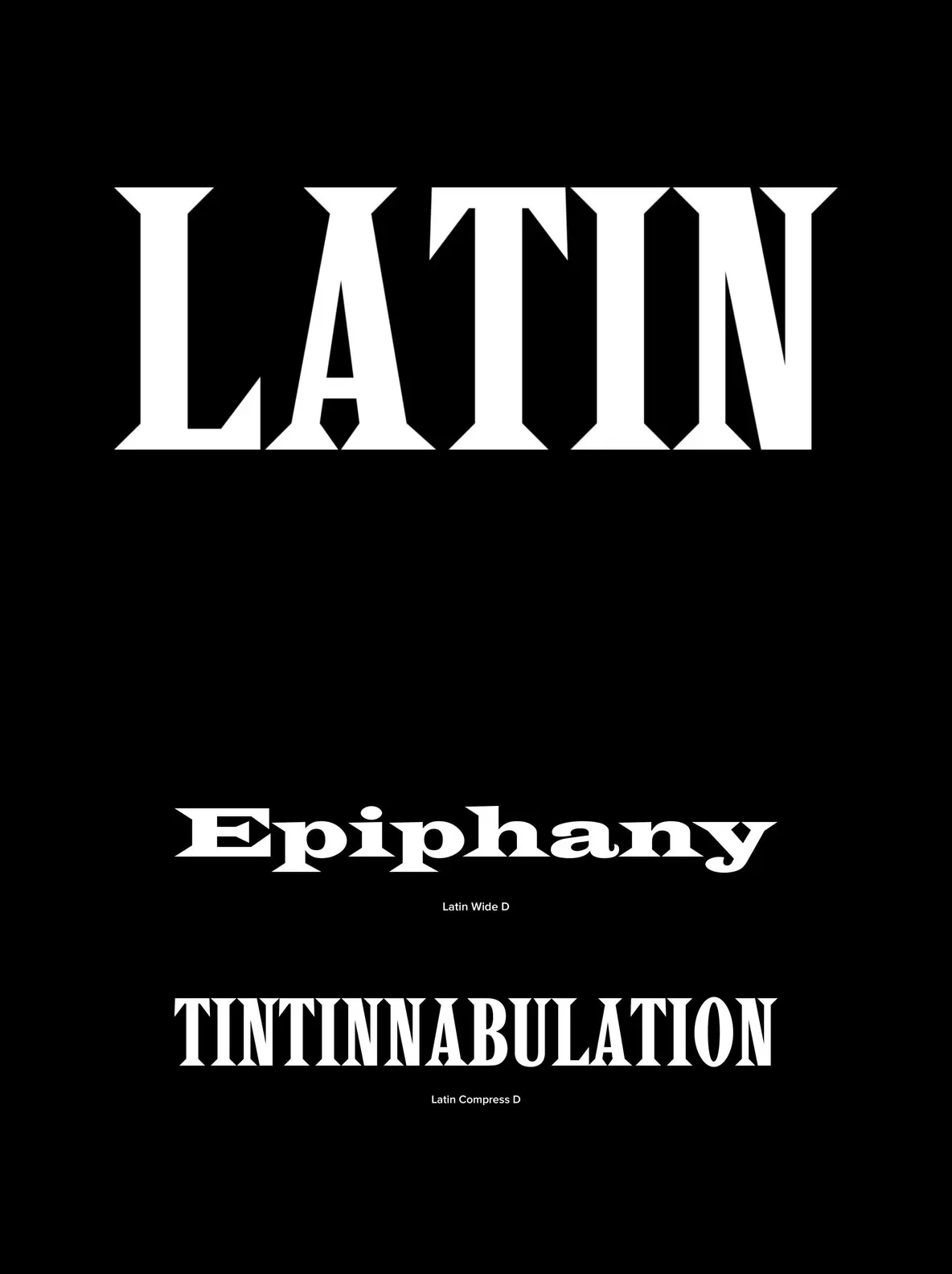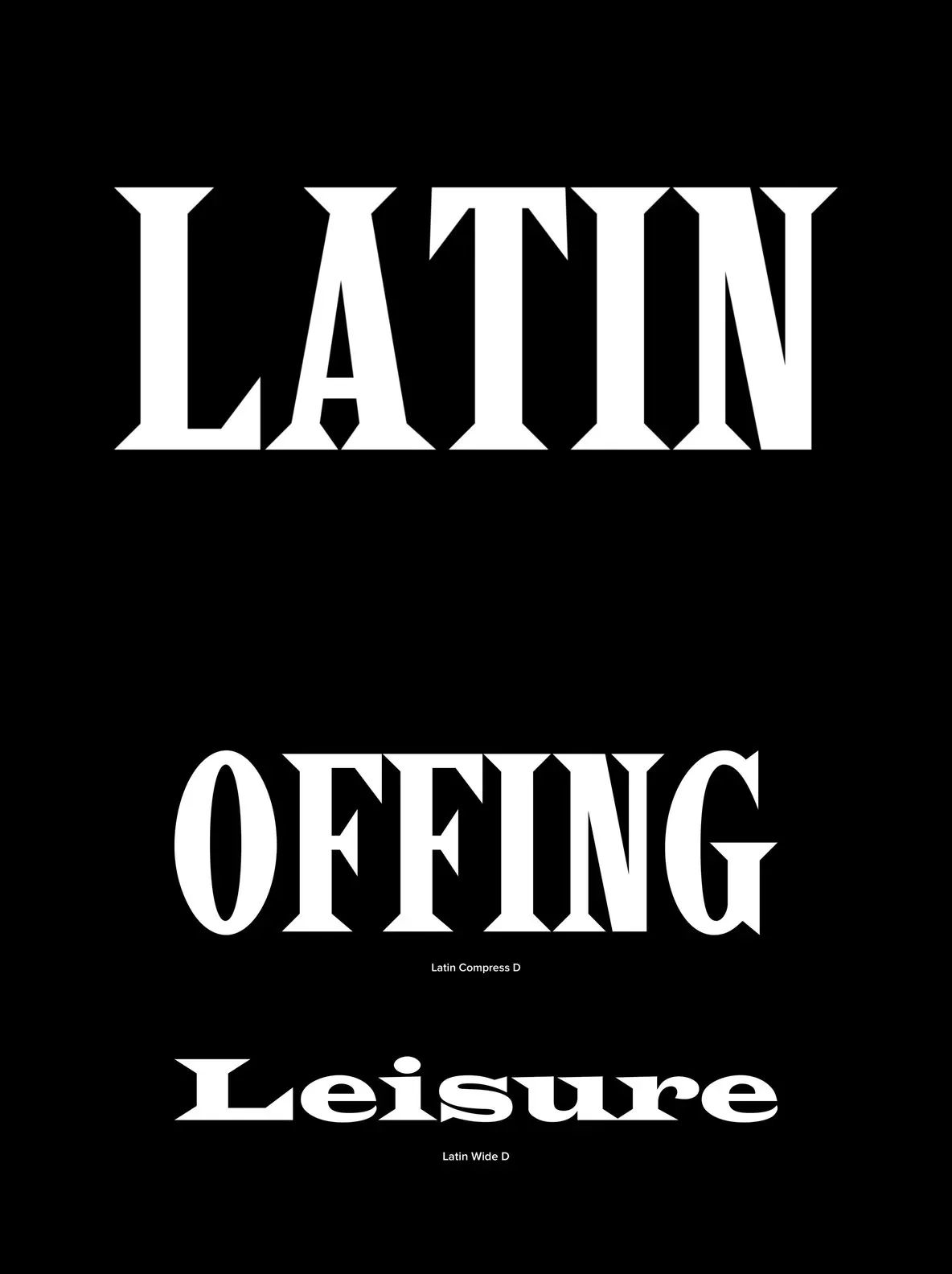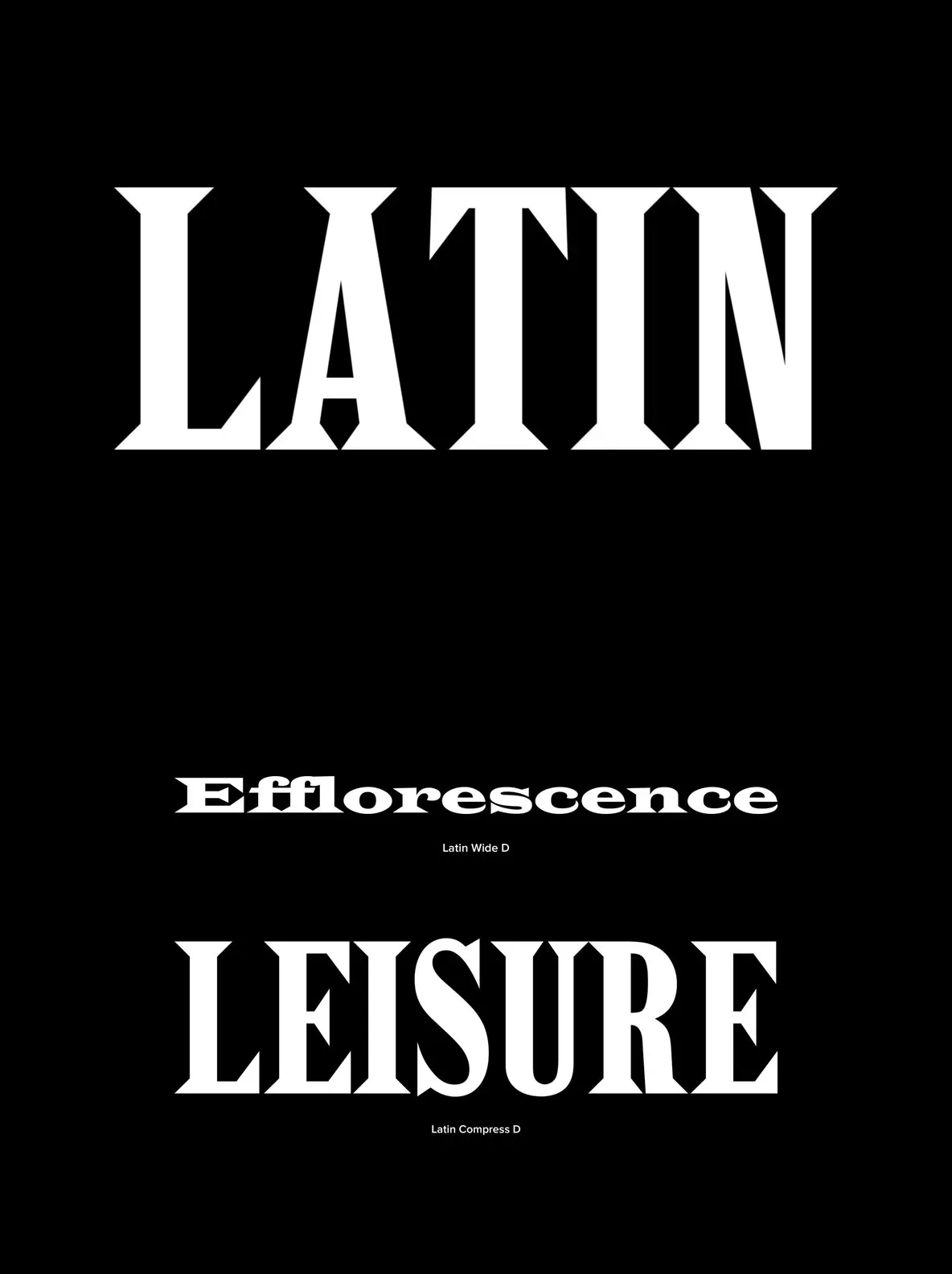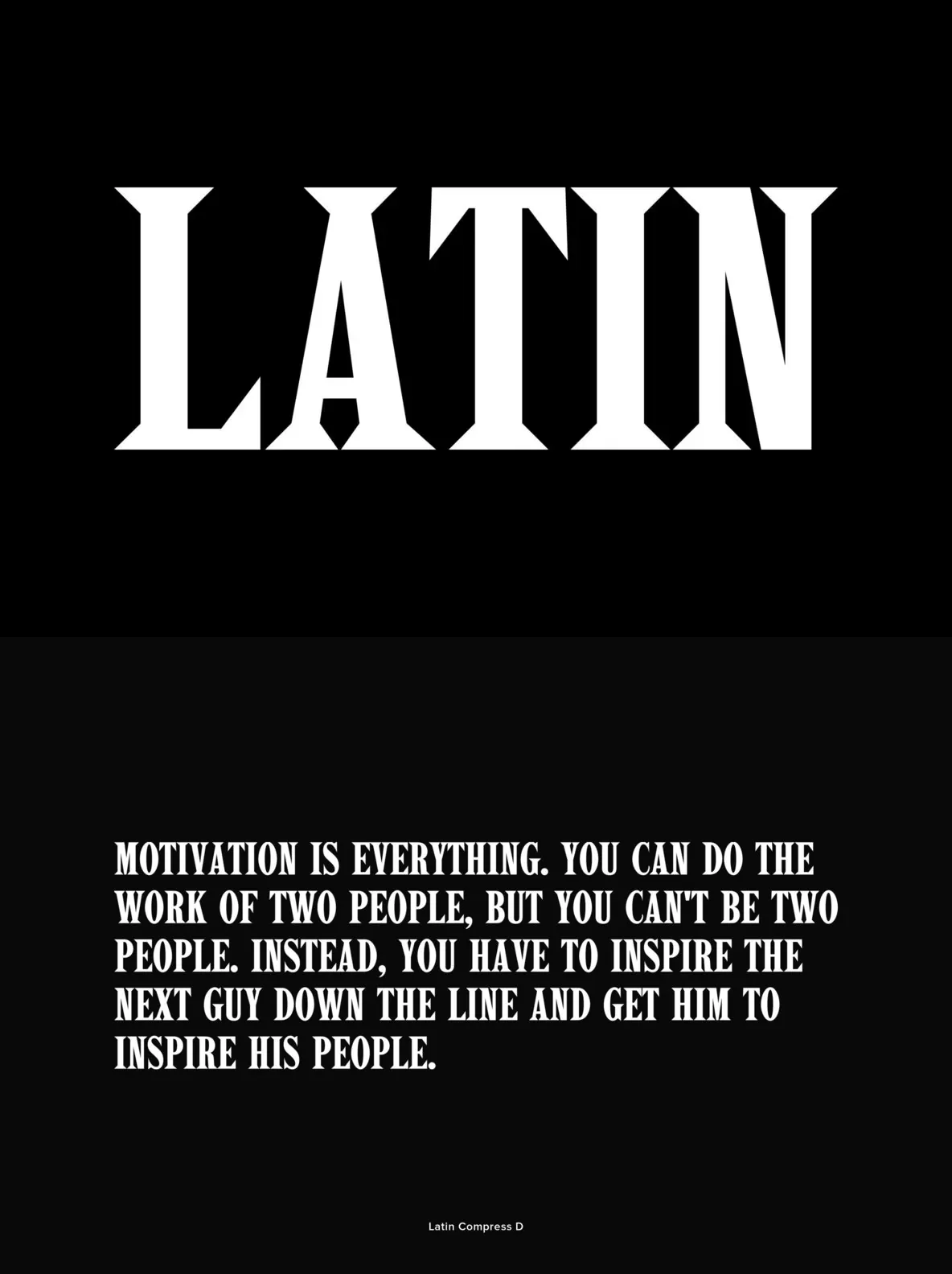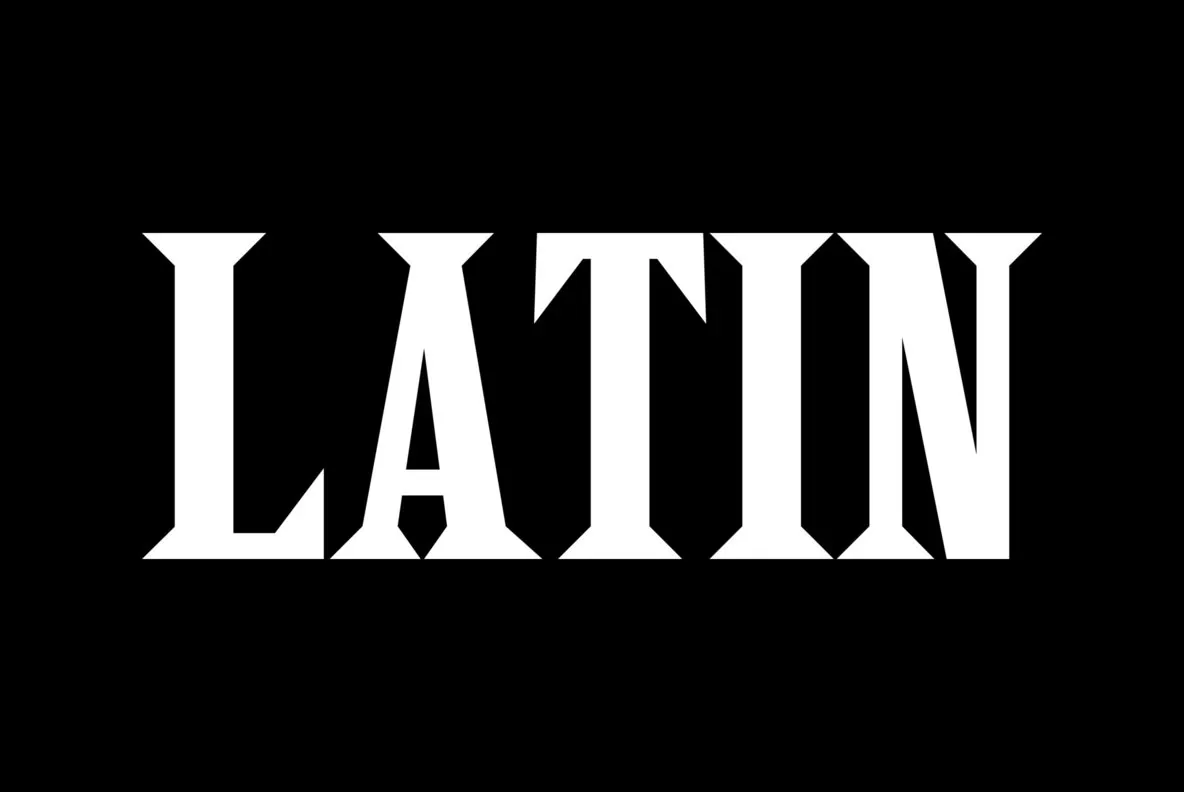
Latin Typeface: Vintage Charm with Modern Versatility
Latin is a decorative serif font that brings a retro and vintage character to any project. Its distinctive letterforms make it especially effective for headlines and poster designs, where bold expression is essential. The font’s unique personality stands out, making it a smart choice for projects demanding visual impact and classic appeal.
Perfect for fashion, branding, and editorial work,Latin adapts easily to various creative needs. Its decorative elements add depth without overwhelming the design, making it suitable for both contemporary and nostalgic aesthetics. This typeface supports designers seeking clarity and sophistication in their work.
Retro, vintage-inspired serif style
Ideal for headlines, posters, and logotypes
Well-suited for fashion and branding projects